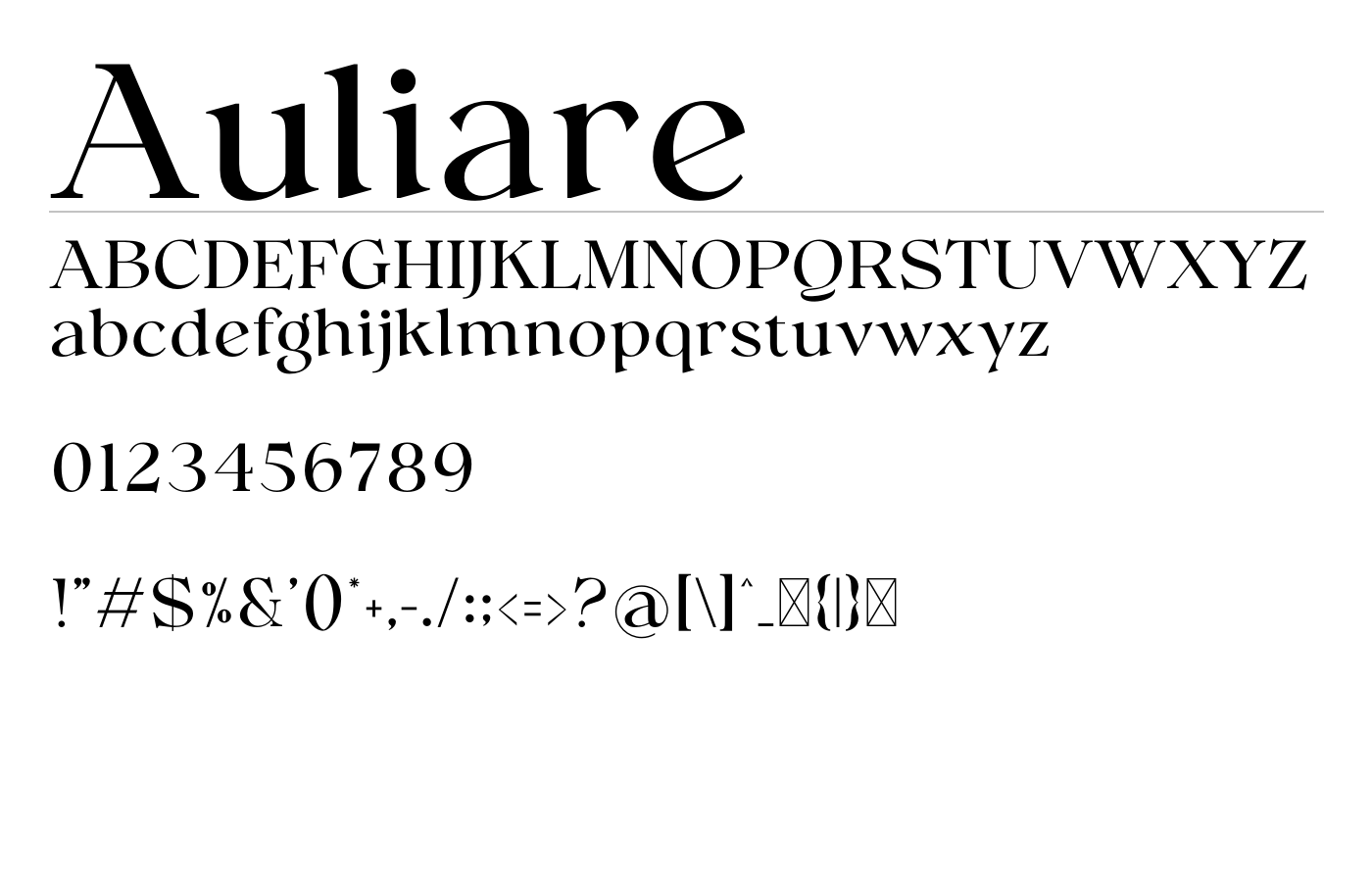
Auliare is a classic serif font with elegant, high-contrast strokes and refined details, making it perfect for sophisticated and timeless designs. Its moderate x-height and balanced proportions give it excellent readability, while its traditional letterforms and subtle flourishes lend a luxurious and professional feel. Ideal for editorial content, branding, and fashion-focused projects, Auliare conveys elegance and authority with a touch of vintage charm.
Auliare Font
About Auliare Font